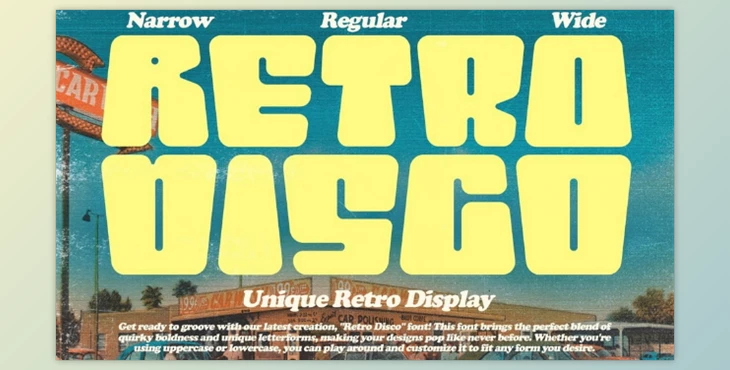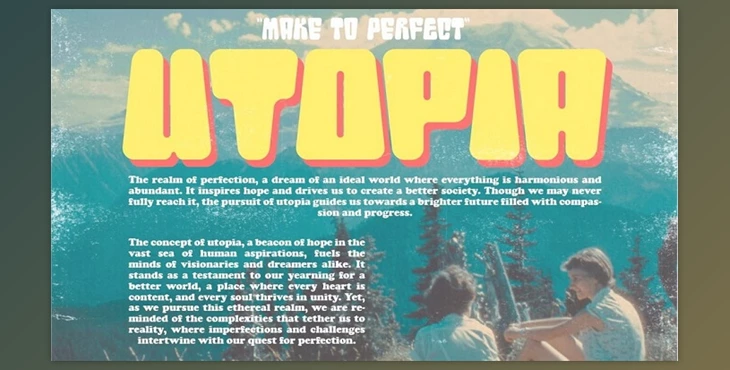
Retro Disco display font that merges bold eccentricity with unique letterforms, adding a playful and vibrant touch to your designs.
This typeface encourages creative exploration with its flexible uppercase and lowercase options. Further enhancing its versatility, Retro Disco offers three distinct widths—Narrow, Regular, and Wide—ensuring seamless adaptation to various project needs.
Ideal for logos, posters, and branding, Retro Disco promises to elevate your creative expression with its lively energy and distinctive character.